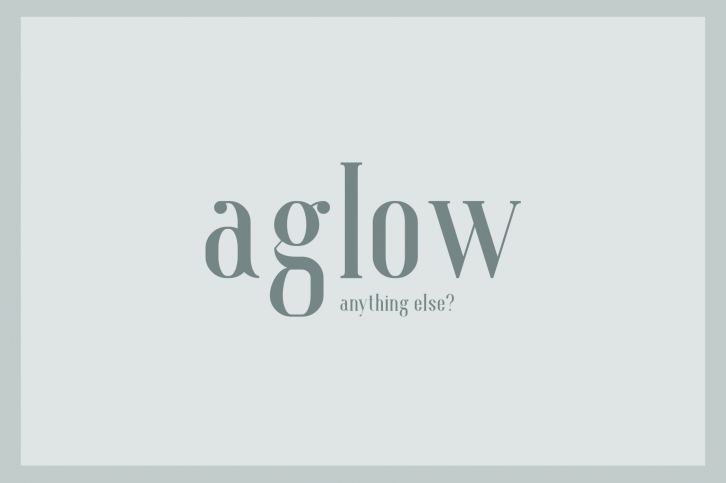
Aglow Serif - 4 Style
Introducing Aglow Serif - A classic and minimalist and awesome character! With 4 different weights, it's perfect for magazine layouts, invitations, headers, or even large-scale artwork.